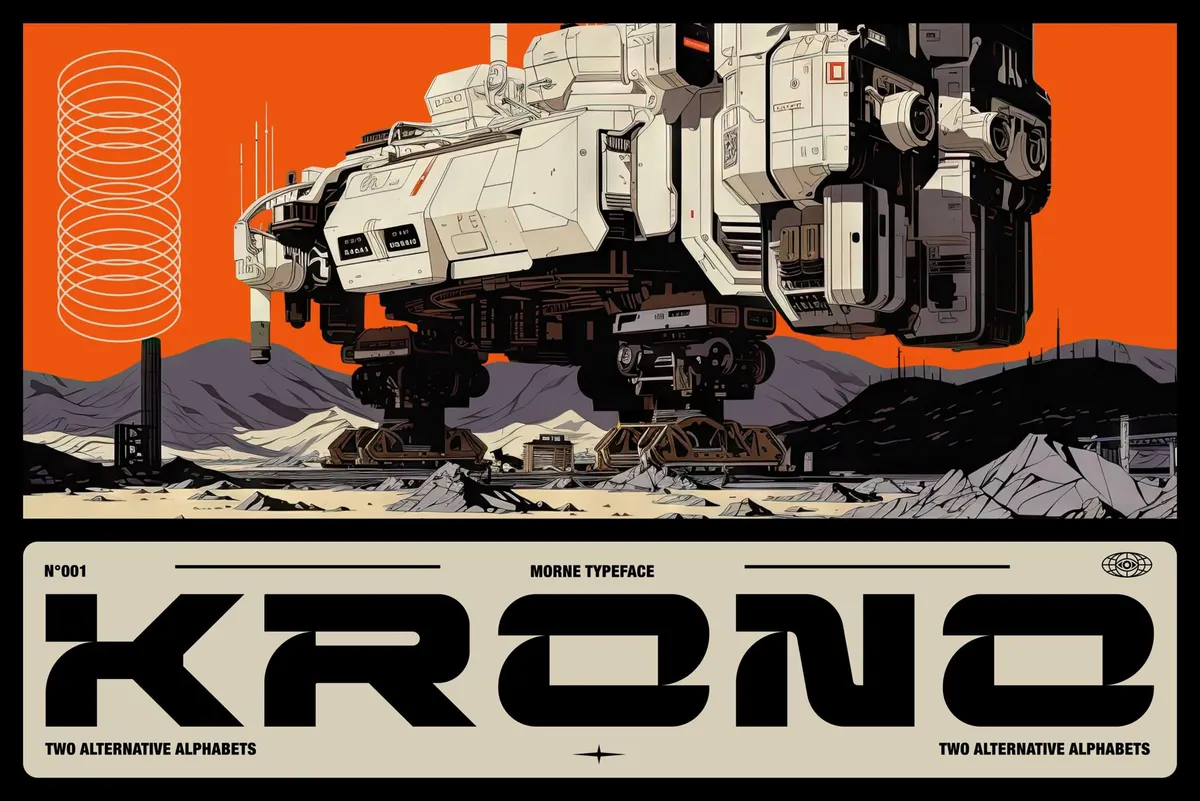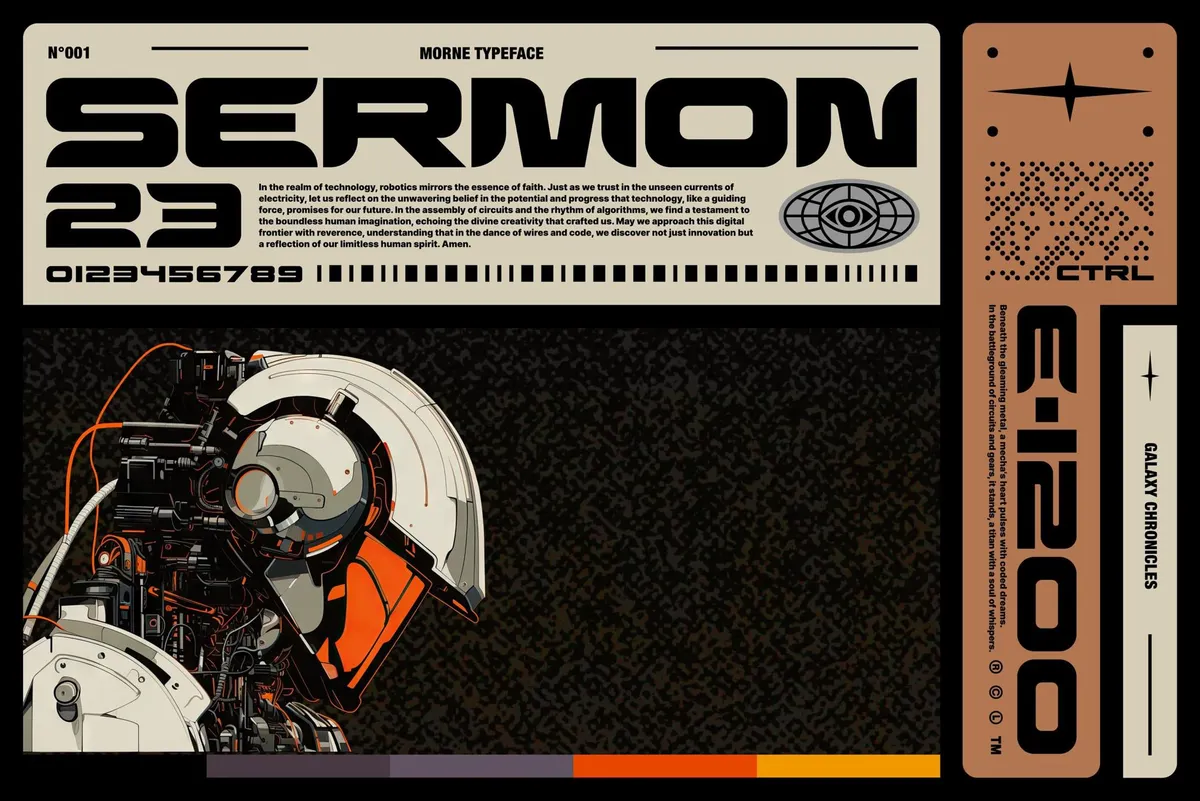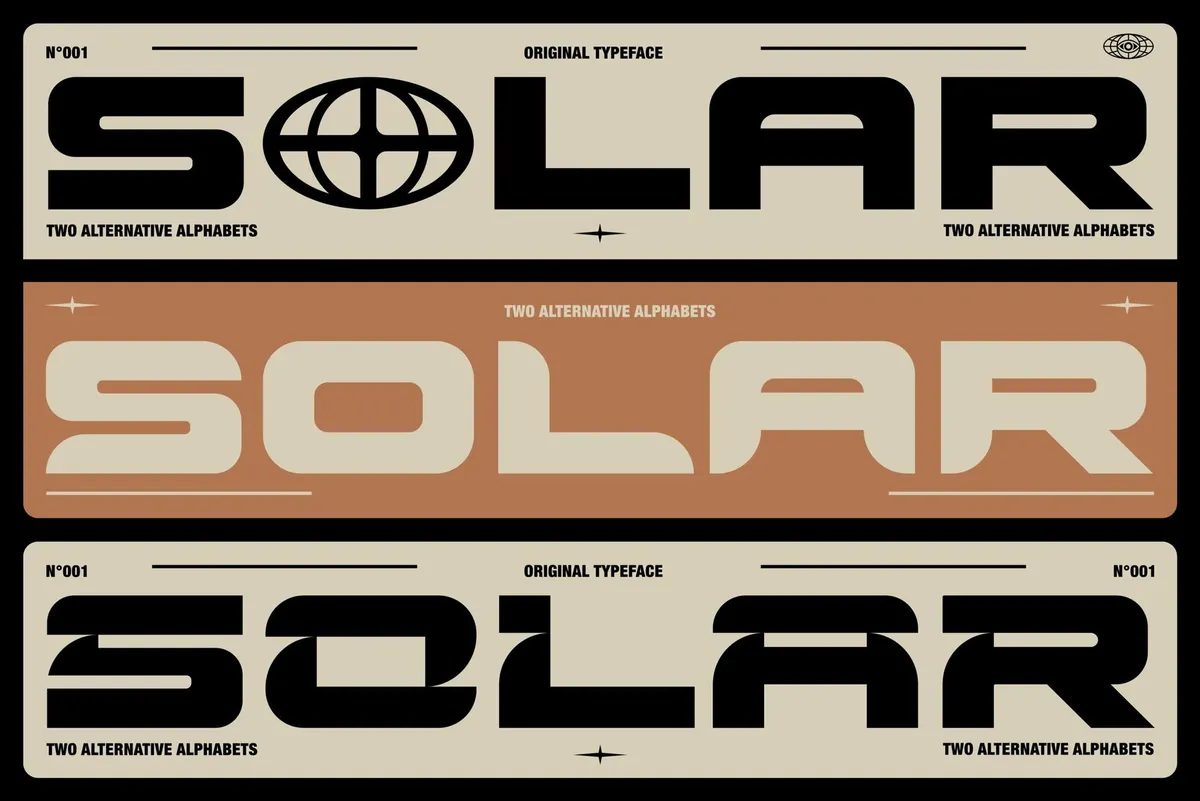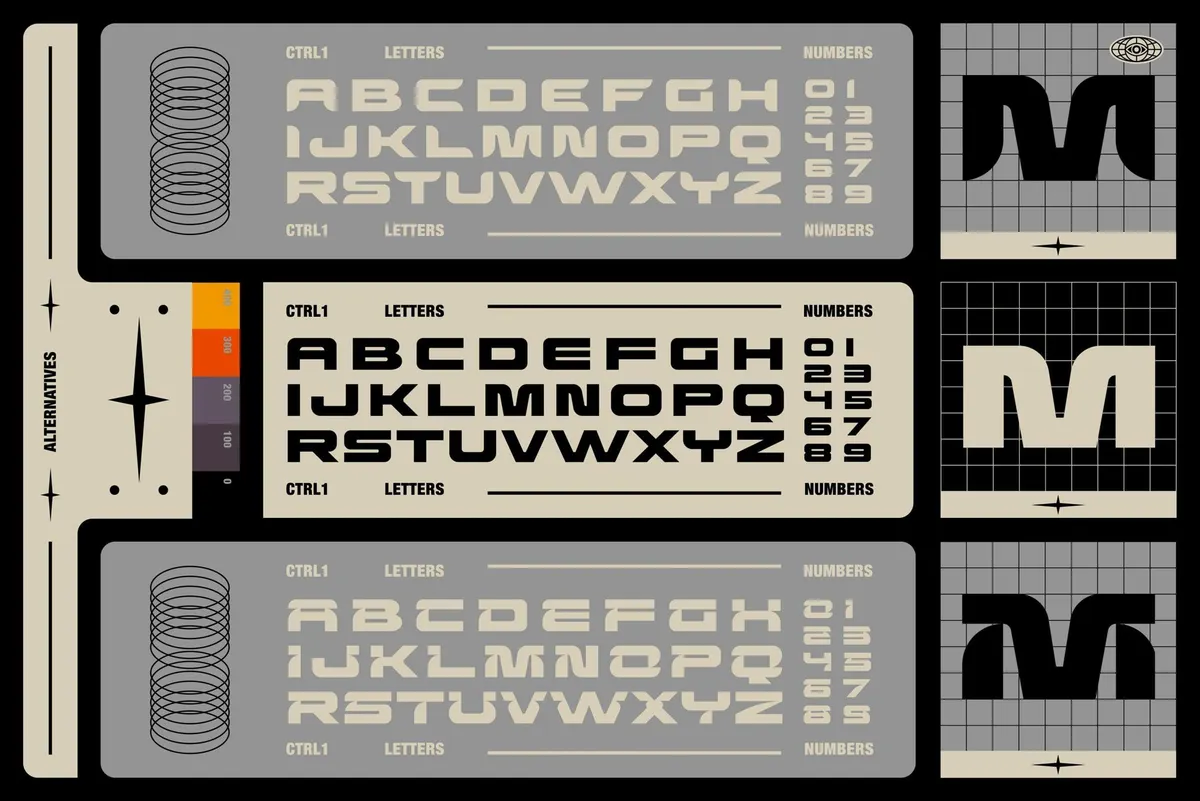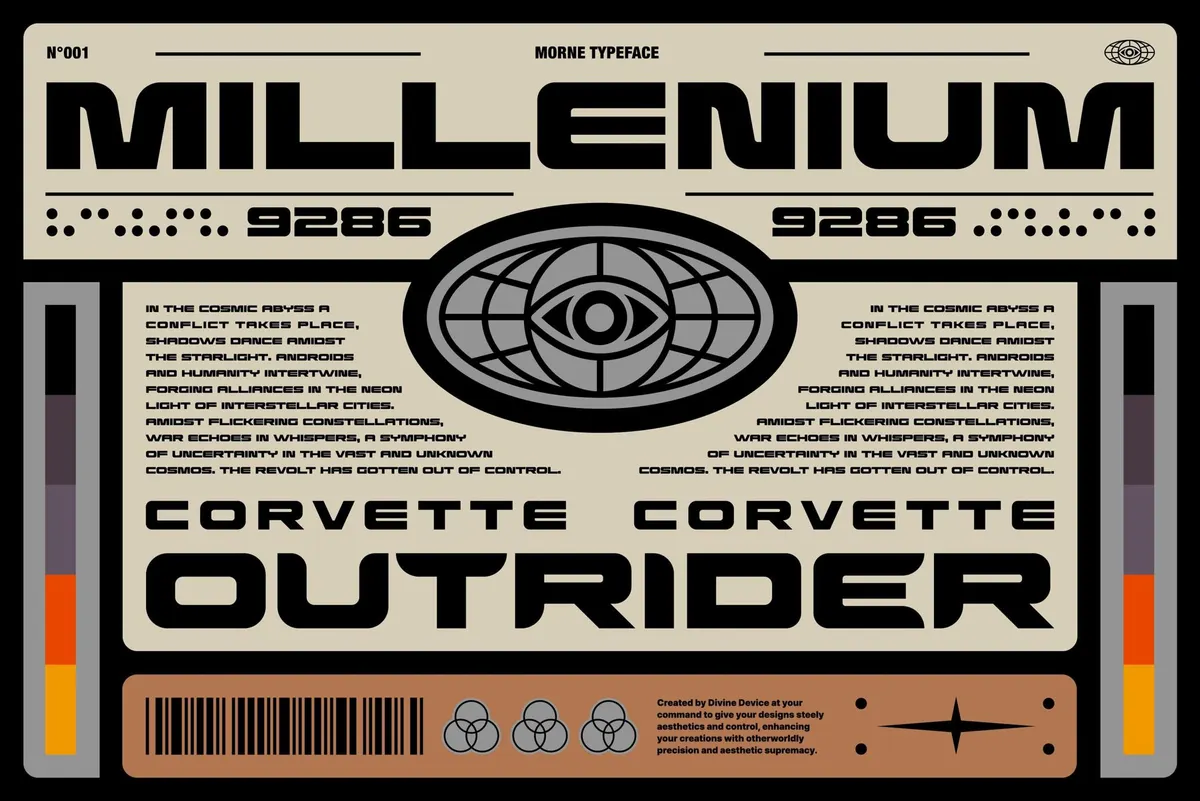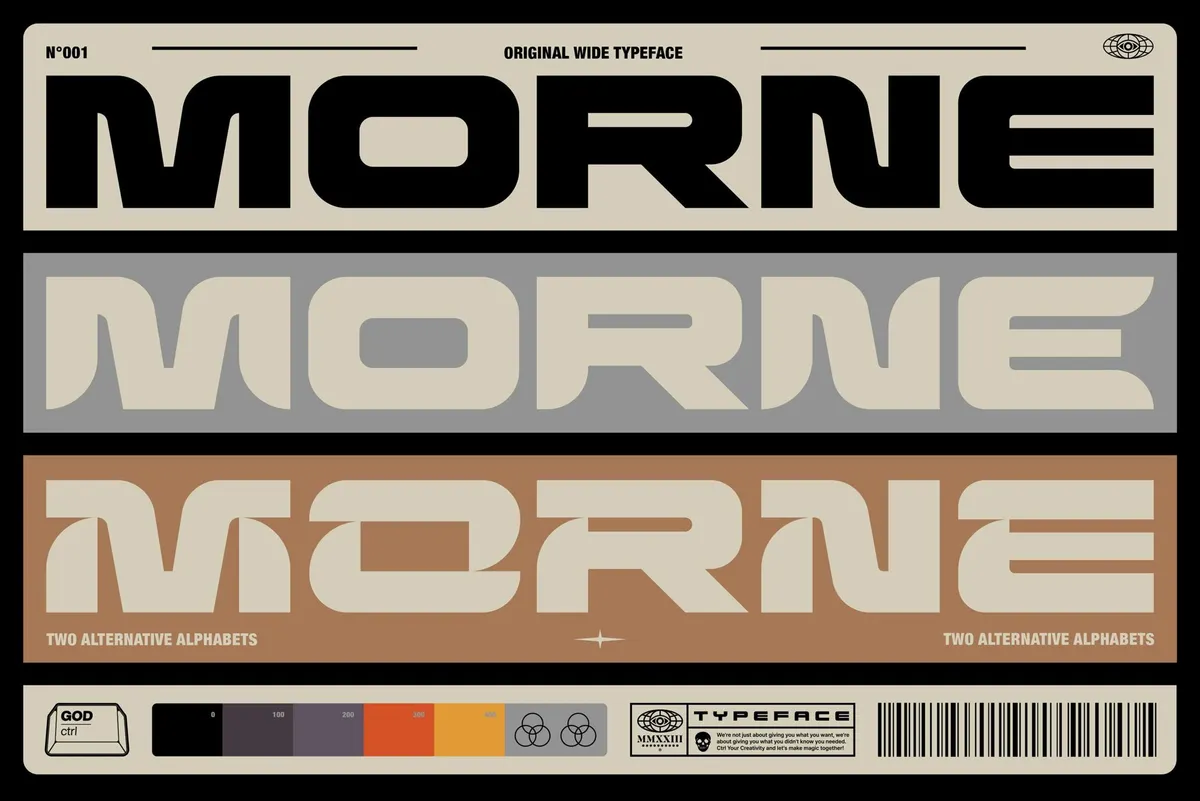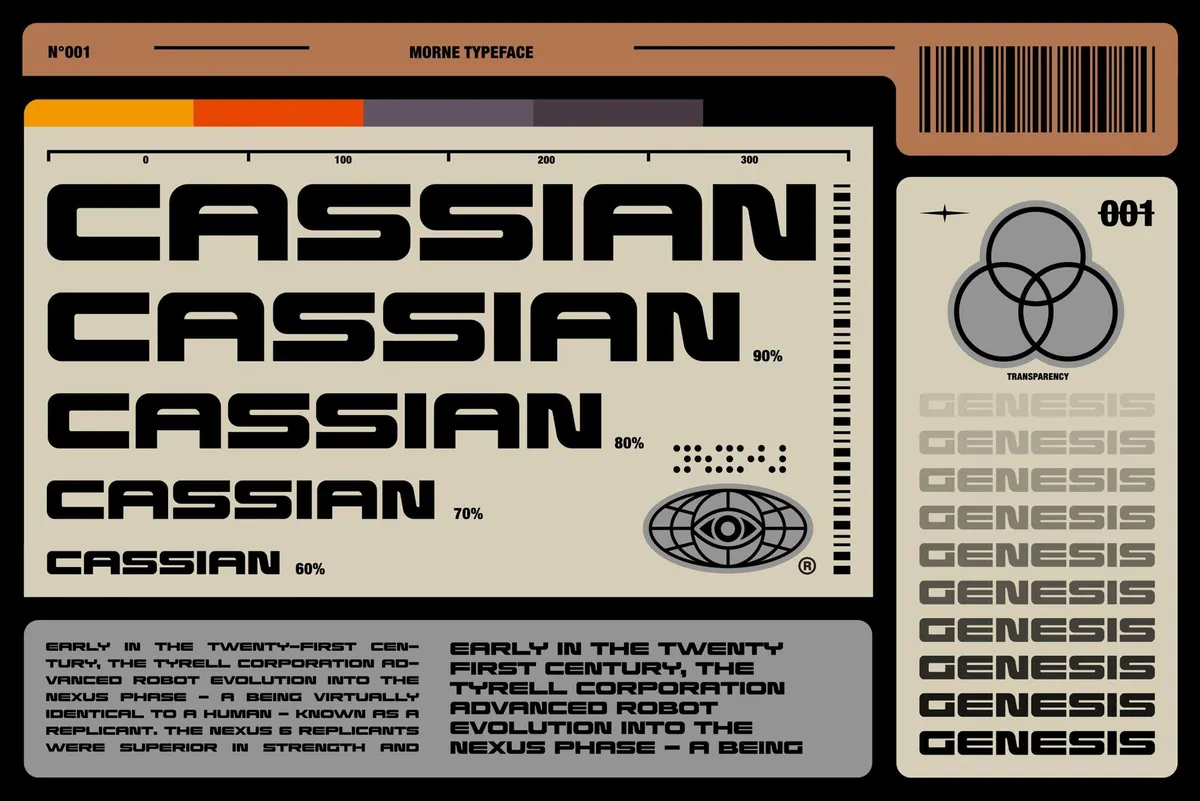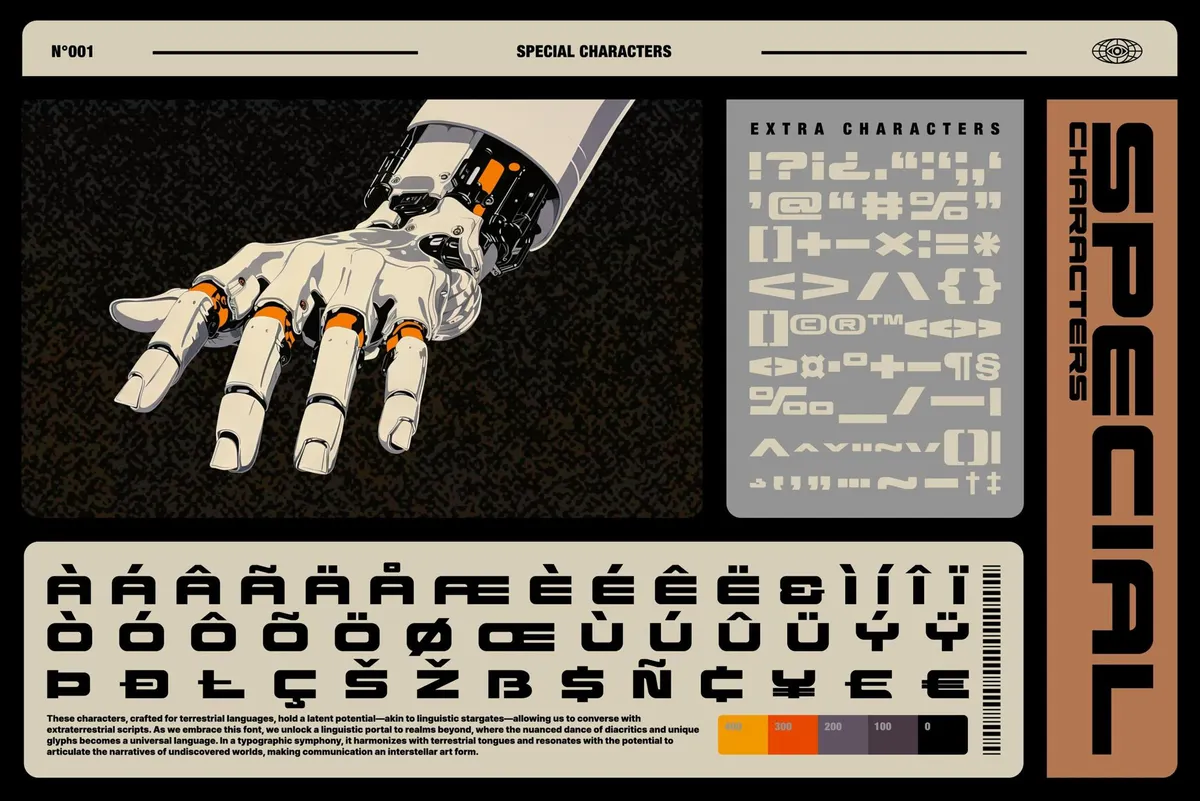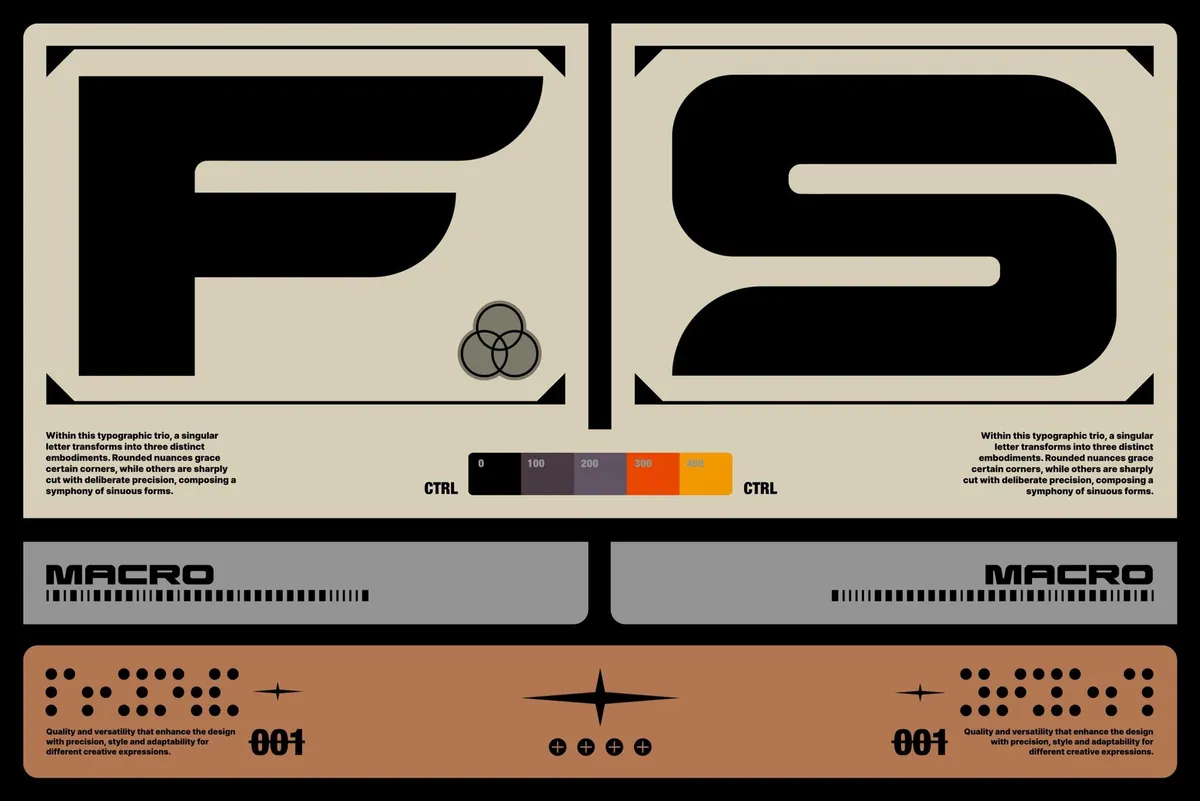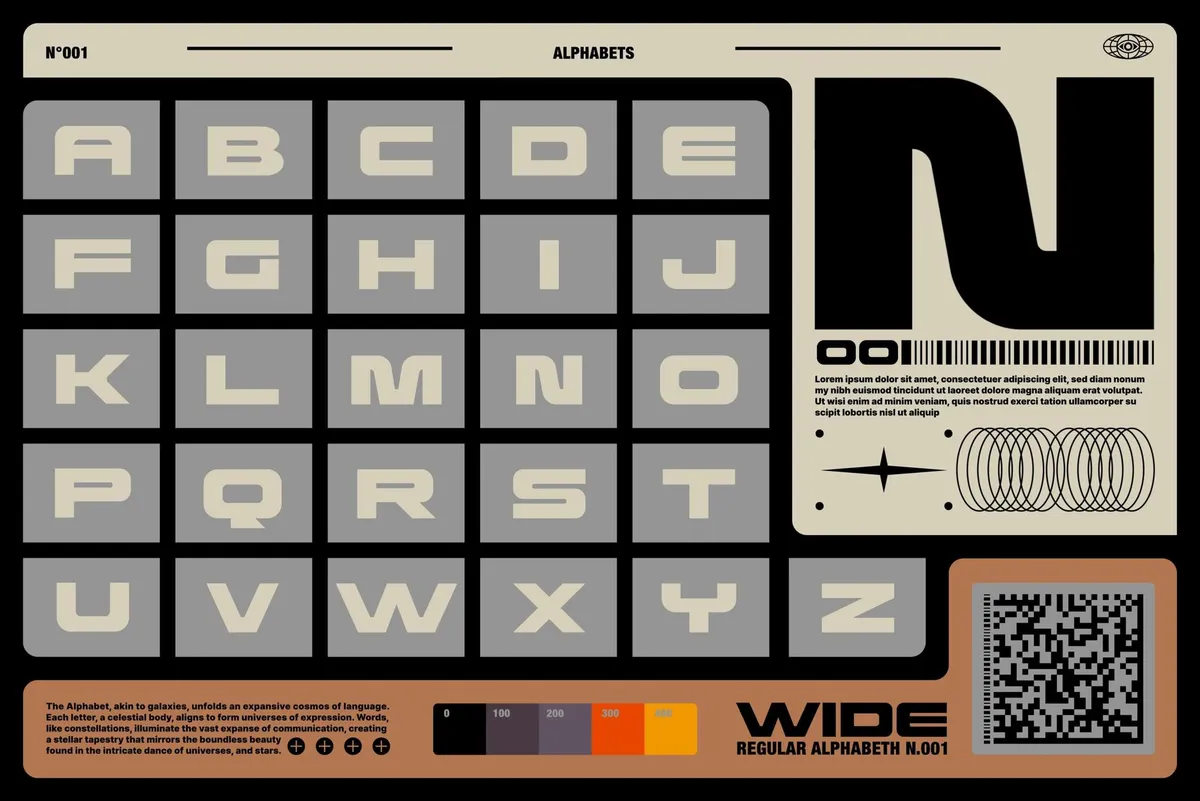
Morne Display Typeface
Brace yourselves: Morne is a full-page spread torn from a 1970s sci-fi zine and jammed straight into your design toolkit. It channels the raw energy of Japanese mecha blueprints, the bold optimism of retro-futurist book covers, and the weighty precision of analog tech manuals from a future that never happened.
Wide, heavy, and dramatic, Morne is built for designers who want their typography to look like it could pilot a robot. Headlines? Locked in. Posters? Ready for launch. Subheadings? More like subsonic propulsion systems. And with three stylistic alternatives for every letter and number, you get the variation that feels mechanical yet human — just like the best kind of old-school sci-fi.